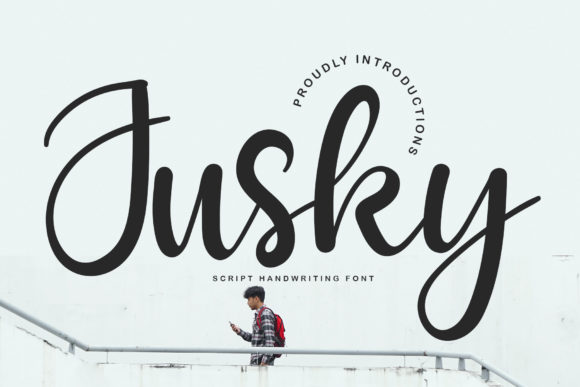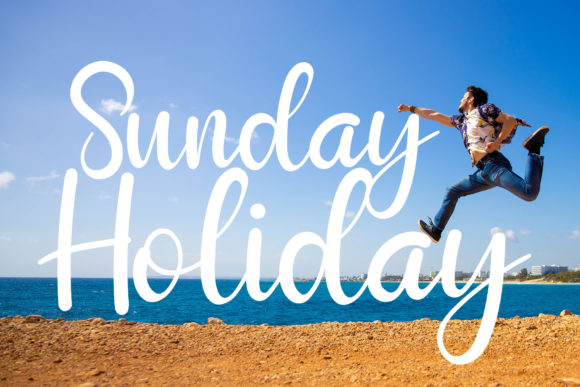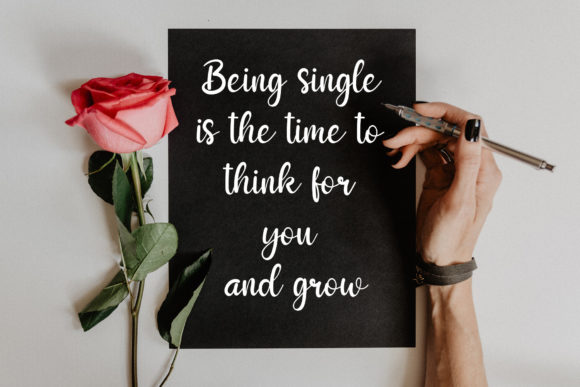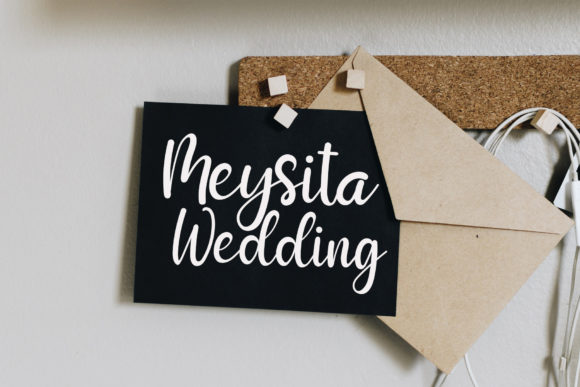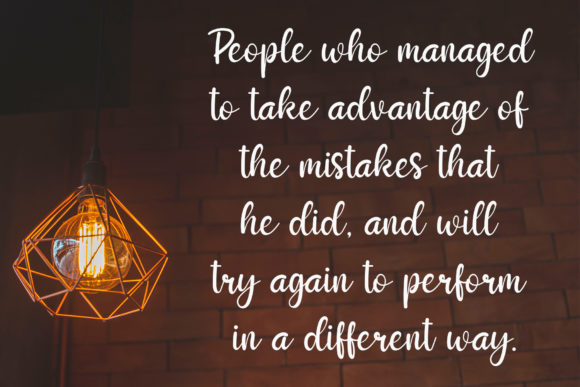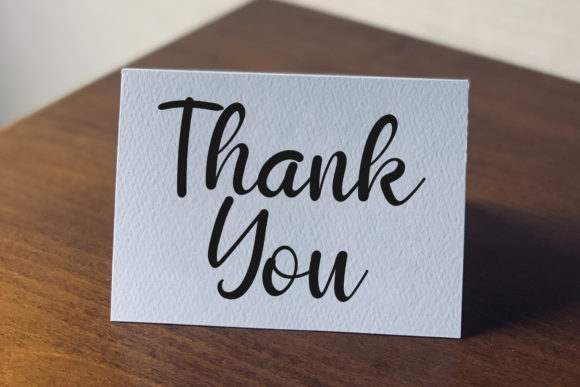
Jusky Font
**Jusky Font: Sweet, All-Round, and Flexibly Romantic**
Introducing *Jusky Font*, a sweet and flexible handwritten typeface that brings warmth, romance, and joy to your projects. This versatile font is designed to turn your creative ideas into genuine works of art. With its PUA encoding, accessing all the glyphs and swashes is a seamless experience, providing you with a range of design possibilities.
The charm of *Jusky* lies in its sweet and all-round handwritten style. It exudes warmth and a jolly, romantic vibe, making it a perfect companion for a diverse range of projects. Whether you’re working on invitations, branding, or any creative endeavor, *Jusky* adds a touch of sweetness and flexibility to your text.
This font is not just about letters; it’s about creating an atmosphere of warmth and joy in your designs. The handwritten charm of *Jusky* brings a personal and authentic touch, turning each project into a unique and delightful piece of art.
The flexibility of *Jusky* makes it well-suited for various applications. Whether you’re aiming for a romantic theme, a warm and inviting atmosphere, or a jolly and playful tone, this font adapts seamlessly to your creative vision.
The PUA encoding of *Jusky* ensures easy access to a variety of glyphs and swashes, enhancing your design experience. This feature empowers you to explore and incorporate unique elements effortlessly, allowing for a truly customized and personalized touch.
In summary, *Jusky Font* is more than just a typeface; it’s a sweet, all-round, and flexibly romantic addition to your design toolkit. Let it be the font that brings warmth and joy to your invitations, branding, and various creative projects, turning each idea into a genuine work of art.